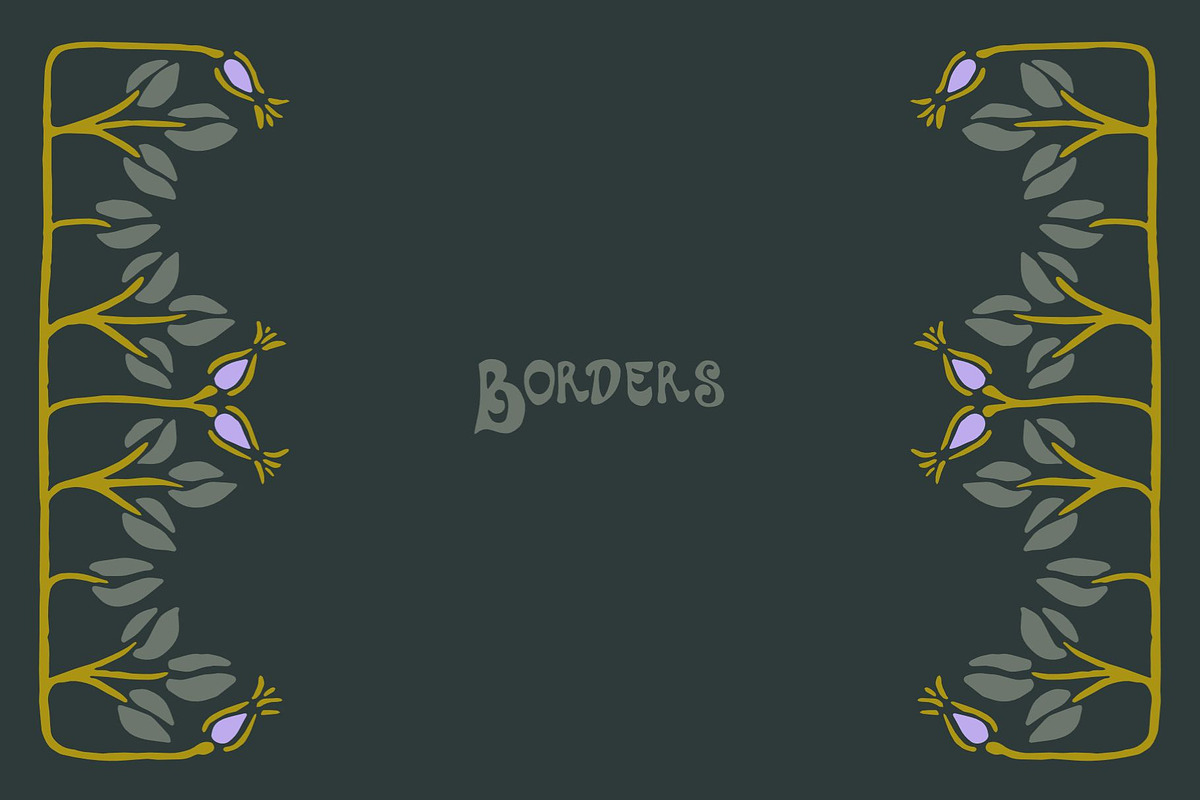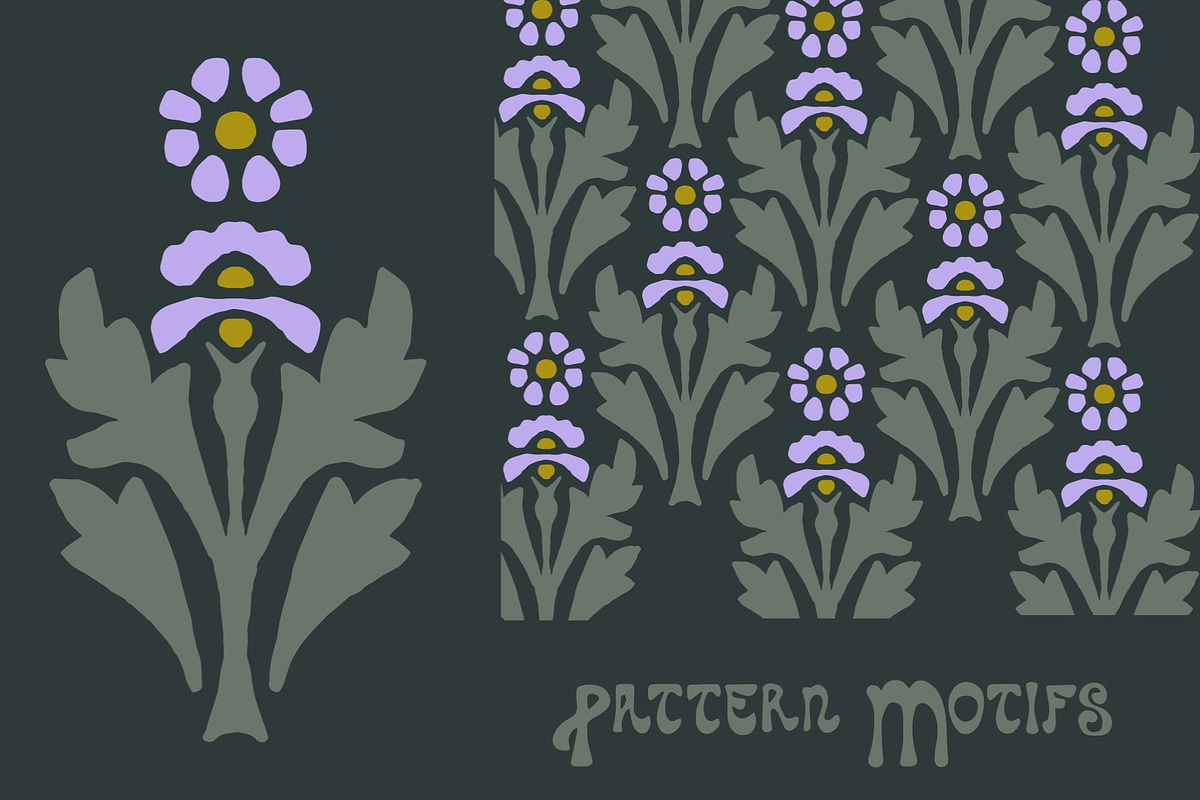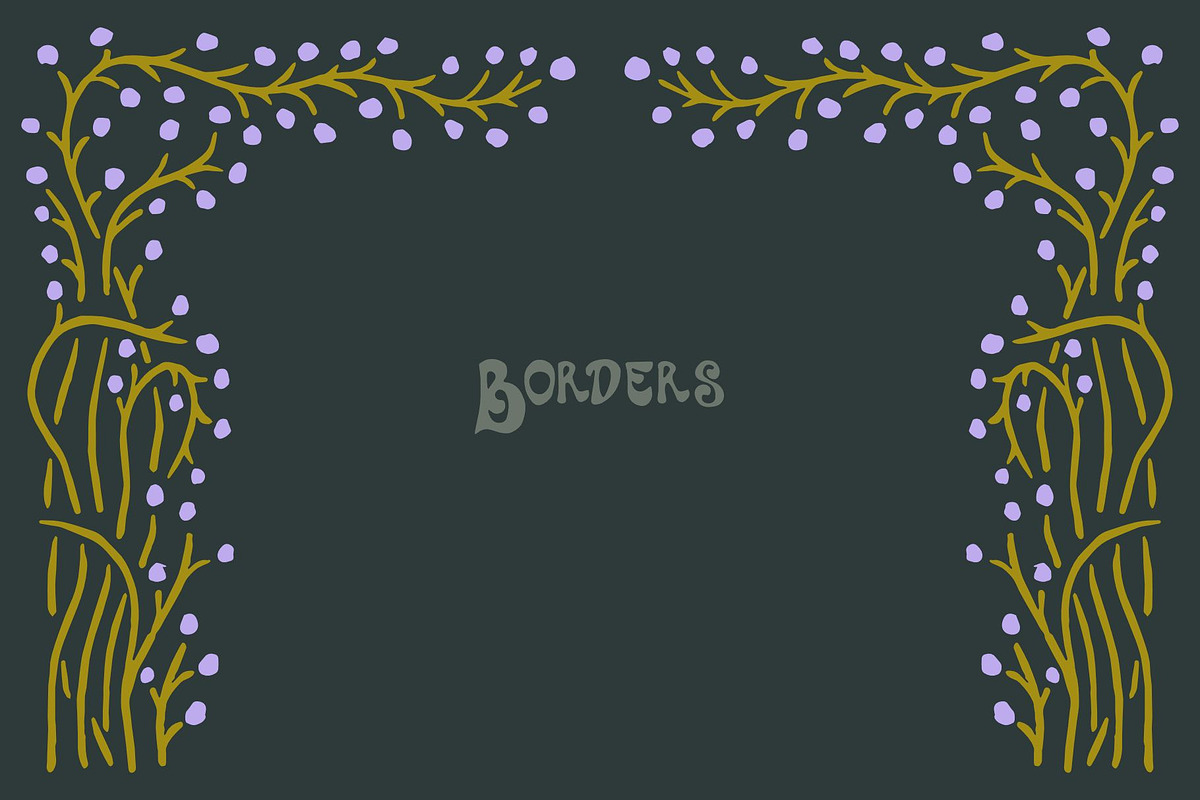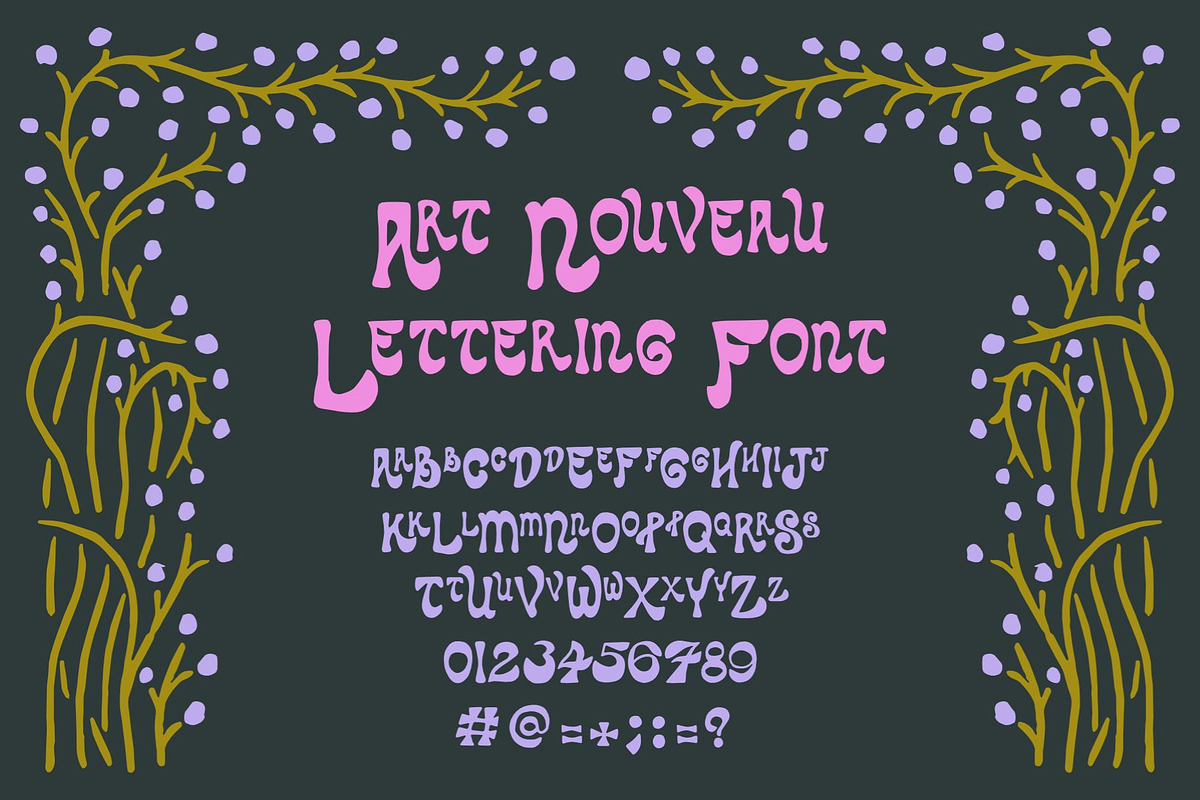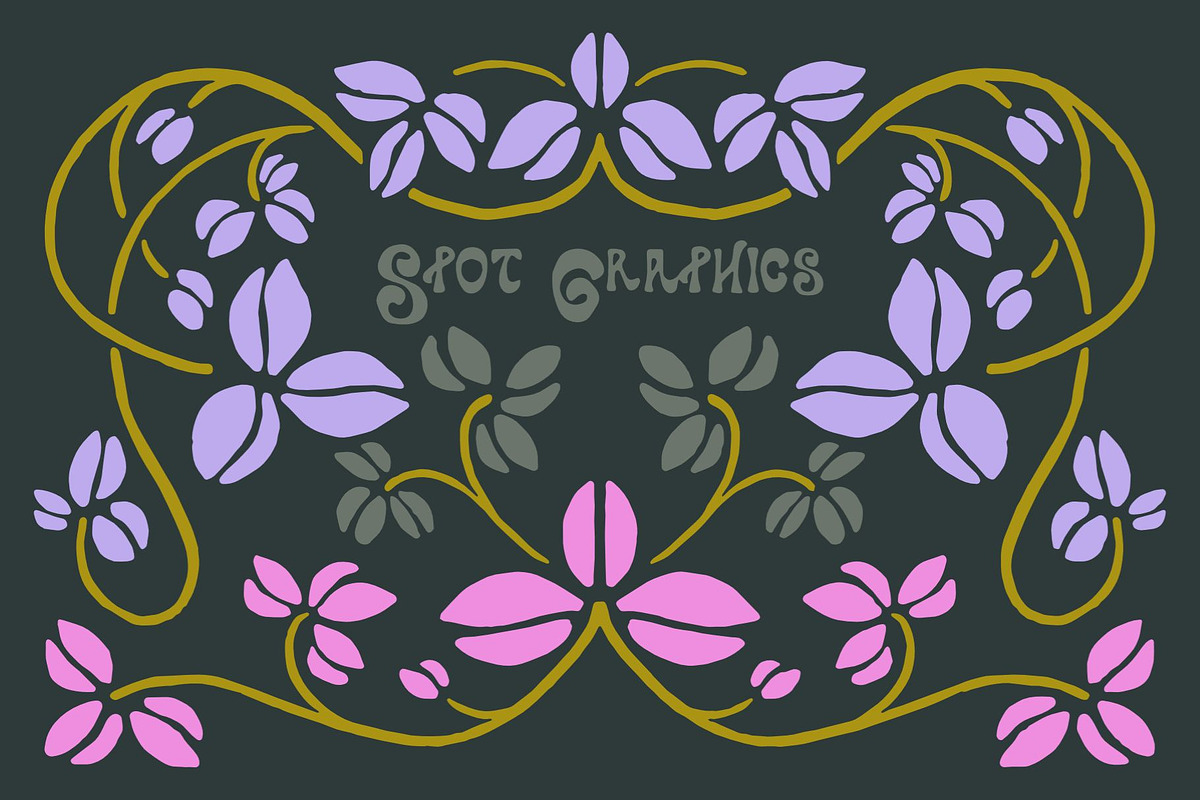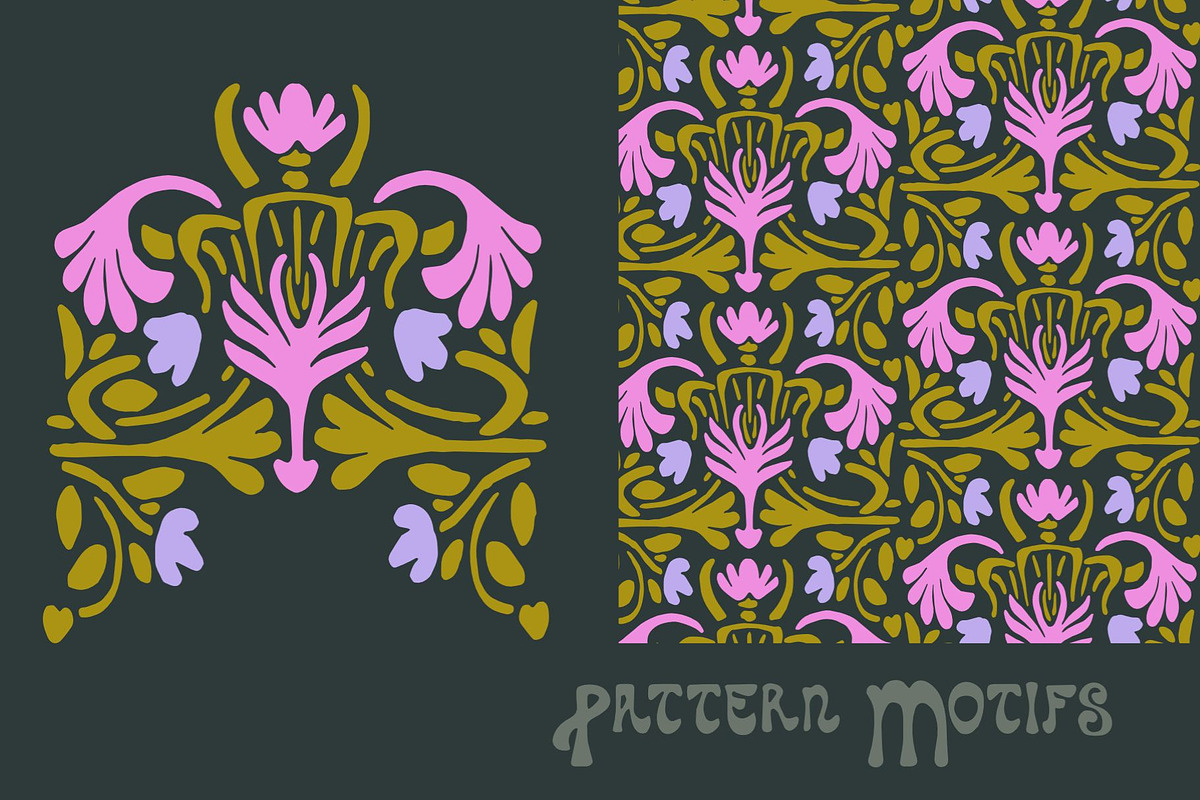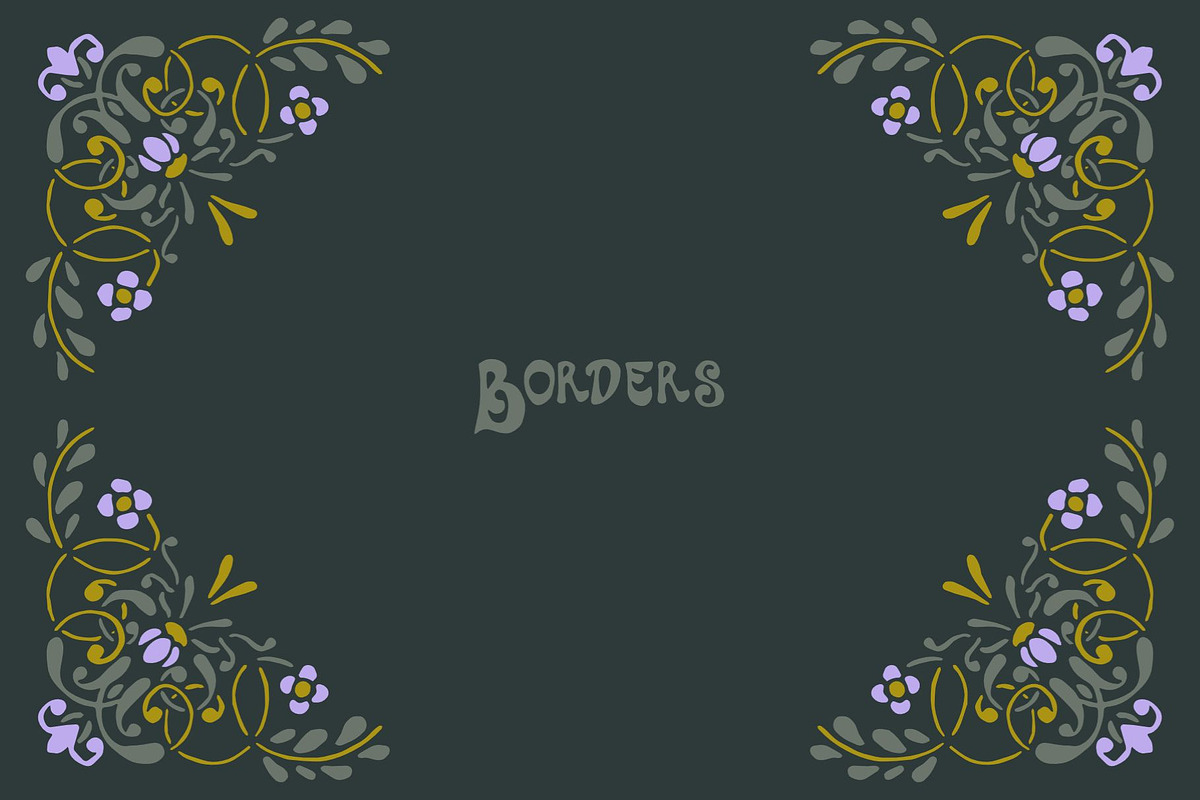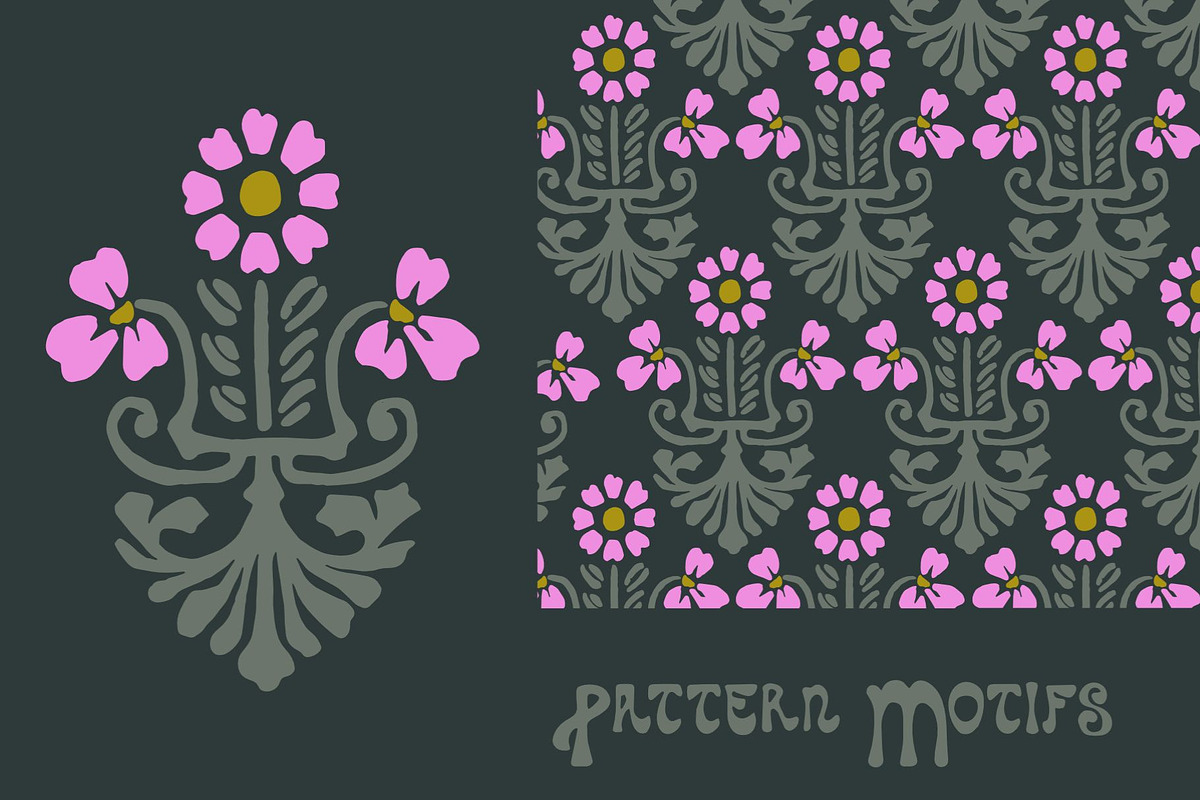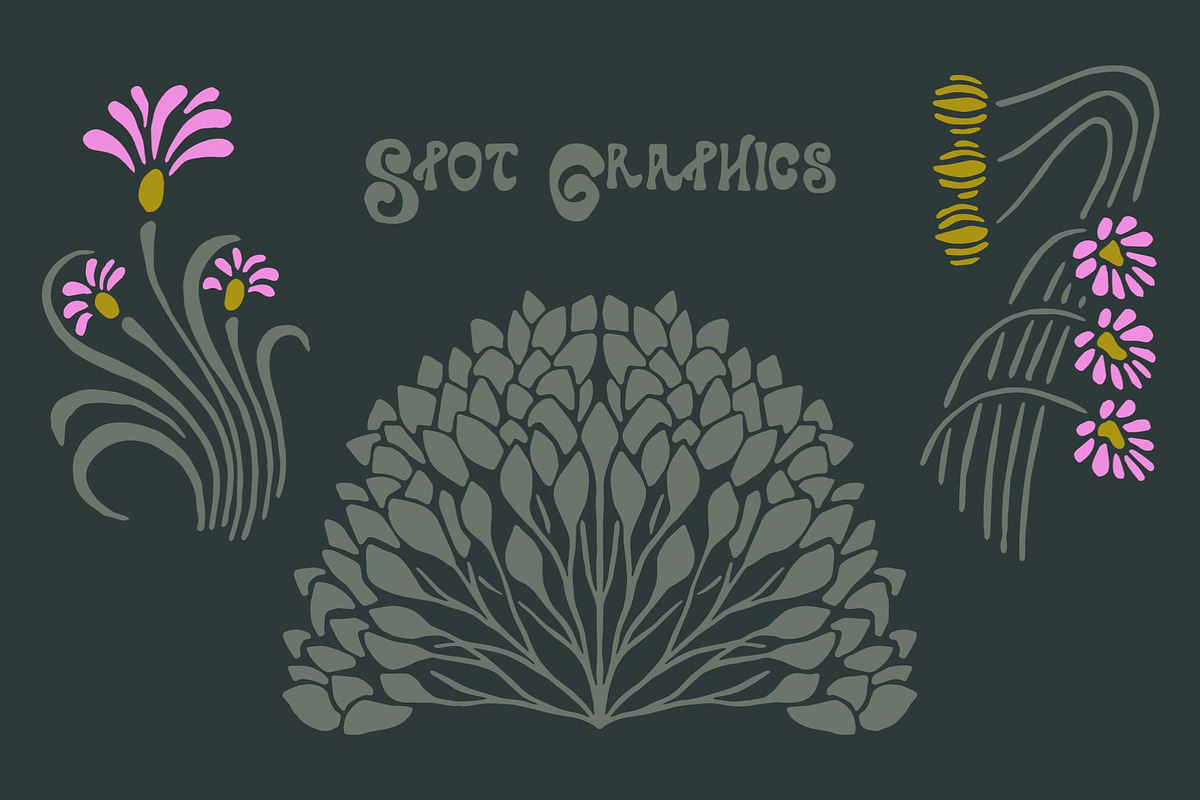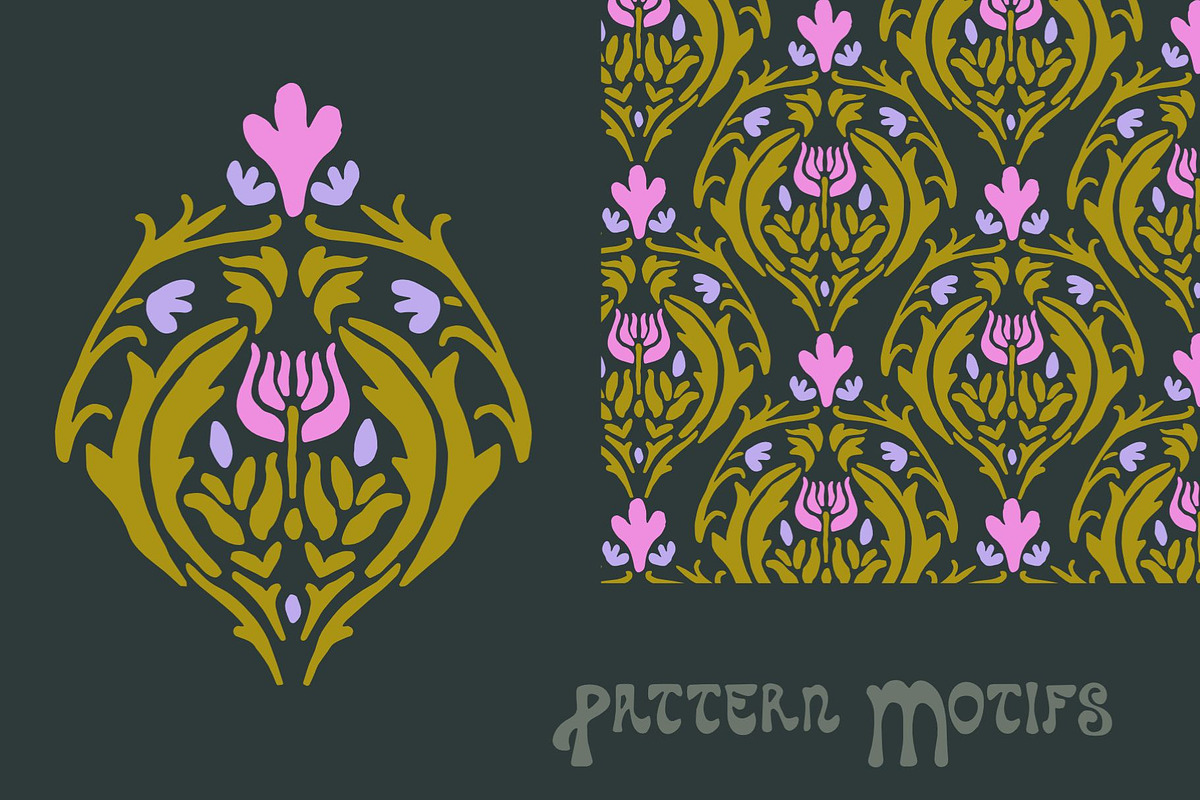
Art Nouveau Graphics & Font
This fluid and handmade Art Nouveau-style graphics set contains a variety of mix-and-match elements that you can use for a wide range of projects and orientations:
- 28 spot graphics
- 10 pattern motifs
- 10 borders
- 10 art nouveau color palettes
- Art Nouveau Lettering Font
This Art Nouveau graphics kit is perfect for invitations, branding, advertisements, menus, and personal projects!